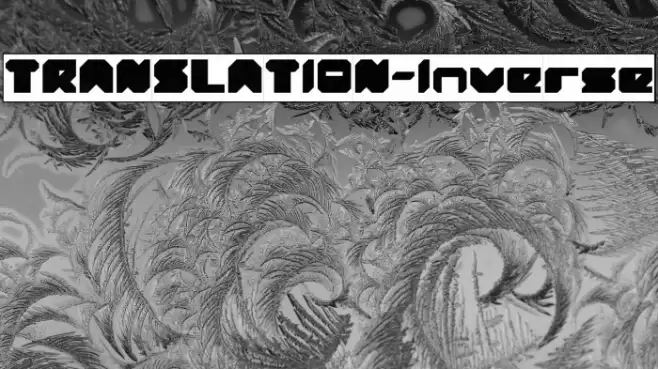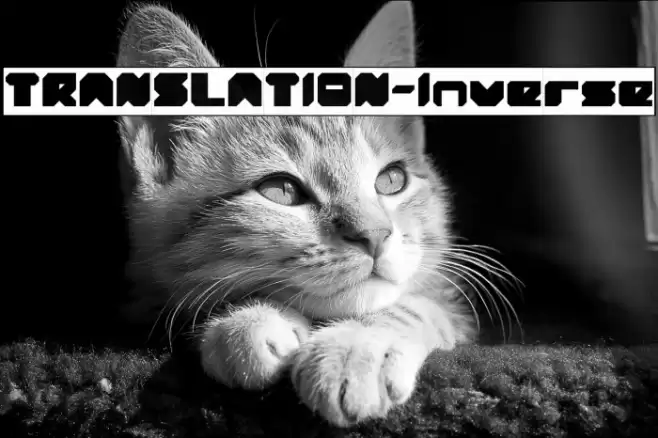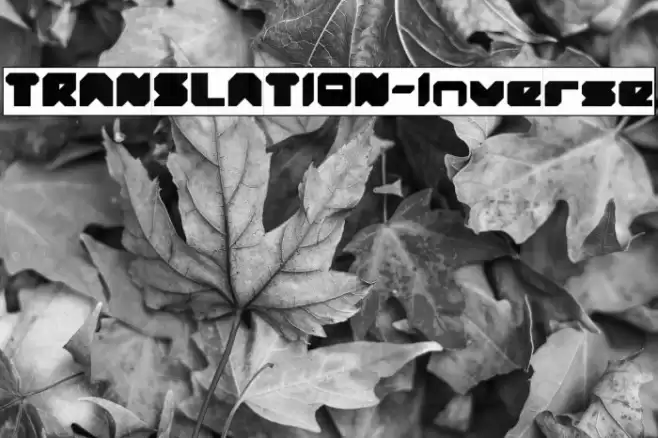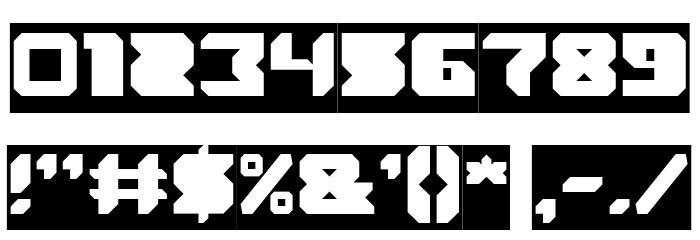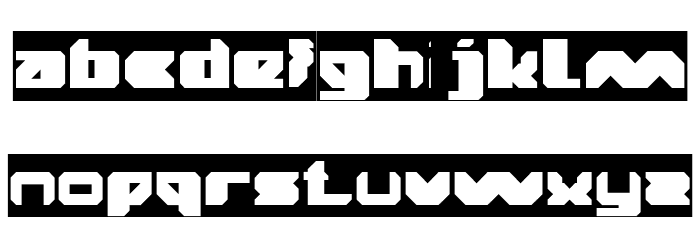
TRANSLATION-Inverse Font
TRANSLATION-Inverse Description
This font features a bold, geometric design with a strong emphasis on angular shapes and sharp edges. Each character is crafted with a unique, blocky style that gives it a futuristic and digital appearance. The uppercase and lowercase letters maintain a consistent width, creating a uniform look across the text. The numbers and special characters follow the same design principles, ensuring a cohesive visual identity. The font's high contrast between the thick strokes and the negative space enhances readability while maintaining its distinctive style.
A bold, geometric font with angular shapes and a futuristic look from Uncategorized fonts.
- Proposed Projects: Ideal for digital art, video game titles, tech branding, and futuristic-themed posters.